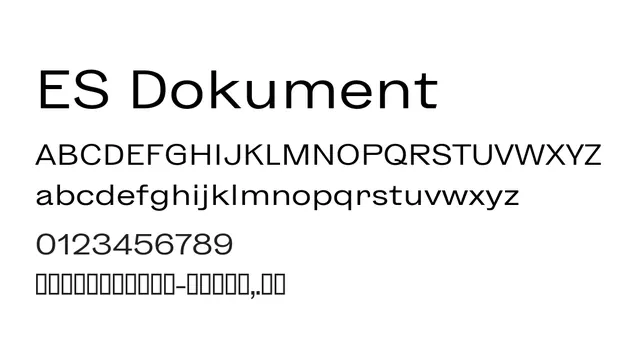
ES Dokument
Contemporary grotesque with wide apertures and efficient proportions, optimized for extended reading and on-screen clarity.
Excellent for body text in long-form editorial, government documents, and digital publications. The extended character widths and open letterforms maximize legibility at small sizes.
Works with Charter or Lyon for editorial hierarchy, or pairs with IBM Plex Mono for technical publishing applications.